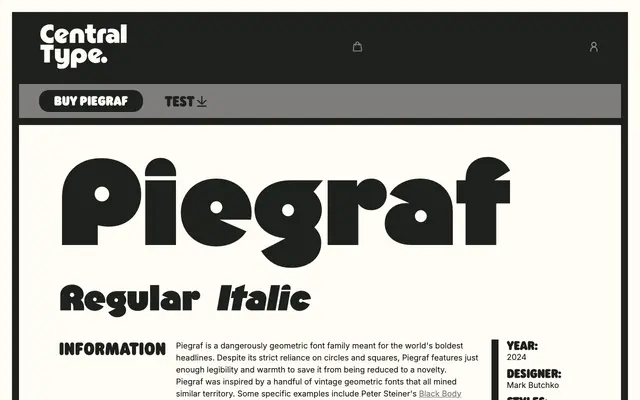
A geometric sans-serif from Central Type with a clean, modular construction suited to editorial and branding work.
Piegraf is a geometric sans-serif built on circular, modular forms that give it a consistent and orderly rhythm across weights. The family covers Regular, Medium and Bold, offering enough range for text and display use without straying into complex typographic systems. Its restrained character makes it adaptable to contemporary branding, editorial layouts and interface design.
Piegraf is a geometric sans-serif, characterised by circular and modular letterform construction typical of the geometric tradition.